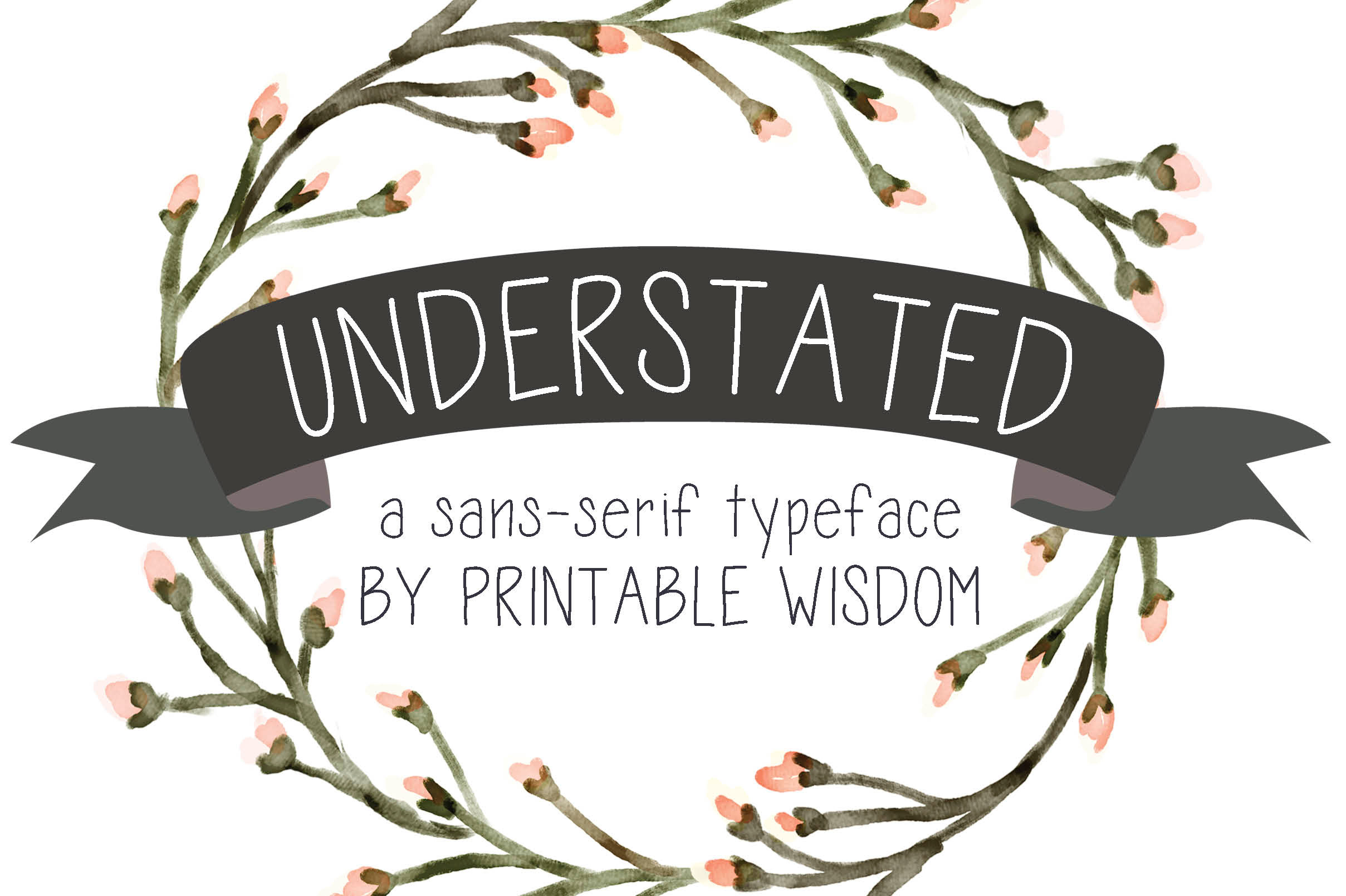
"Understated" a sans-serif typeface
"Understated" - a sans-serif typeface by Ashley Gardner, Printable Wisdom
In a world filled with frilly and complicated fonts, Understated is a breath of fresh air! Add a hand-lettered touch to your projects with this Printable Wisdom font. All punctuation and numbers included (along with a gorgeous ampersand!).